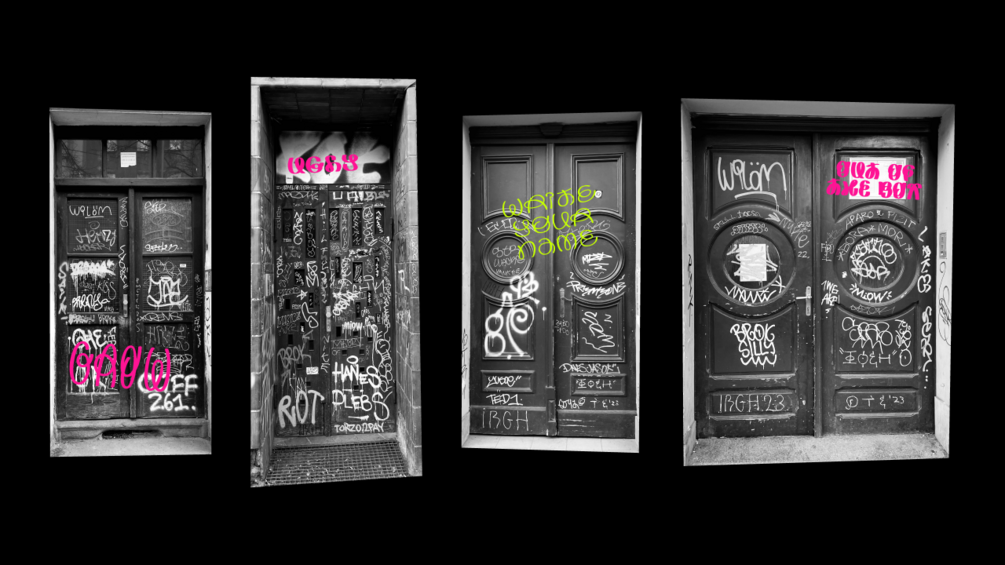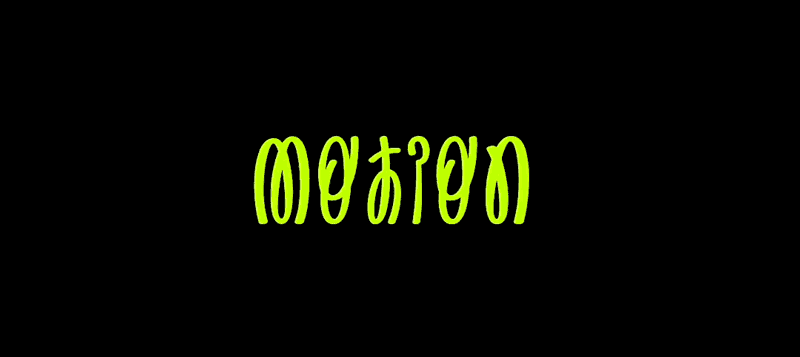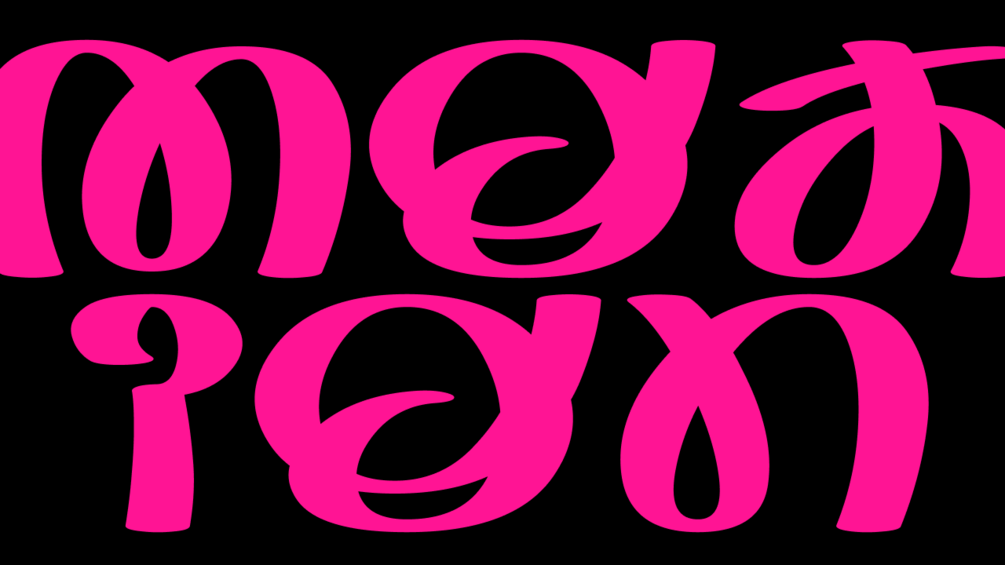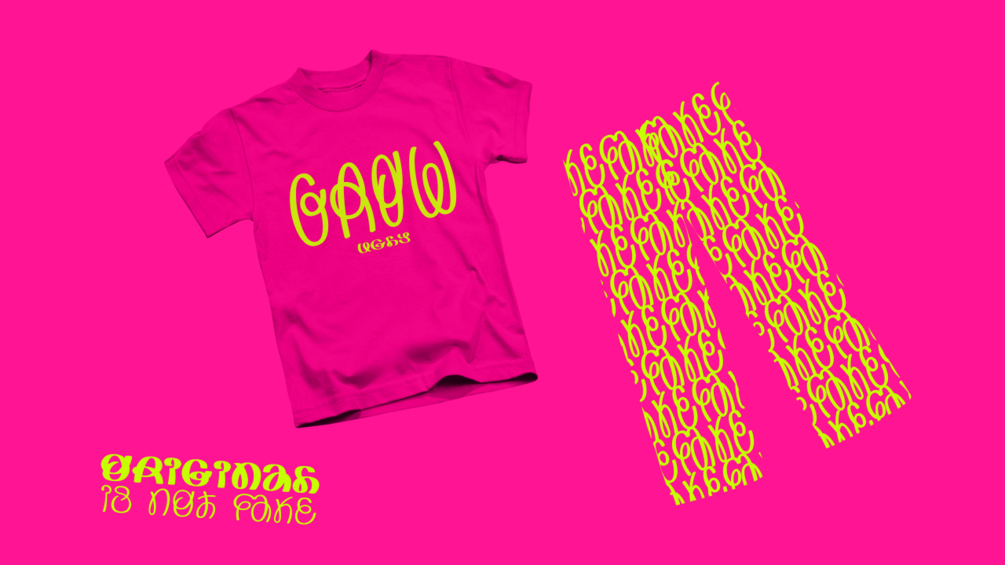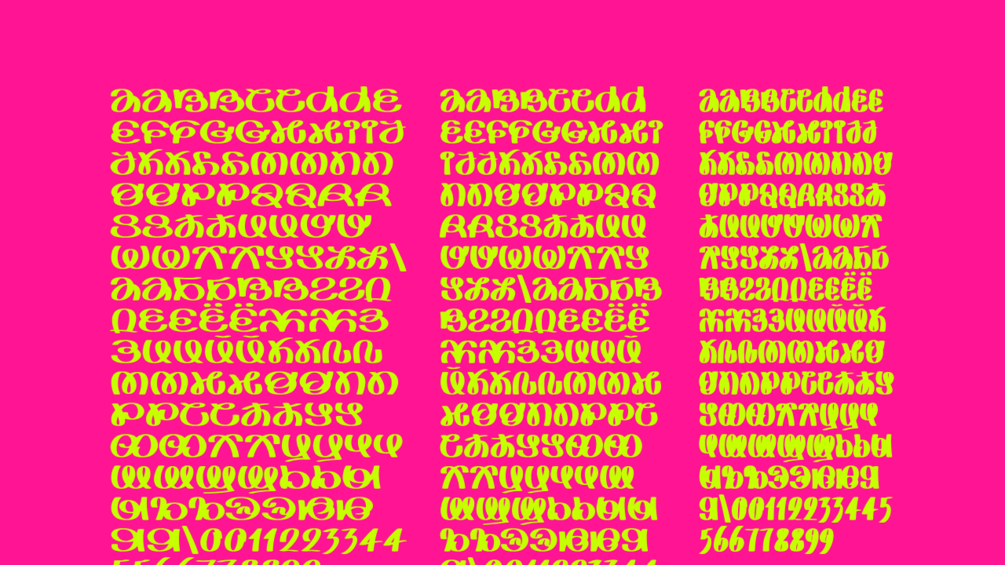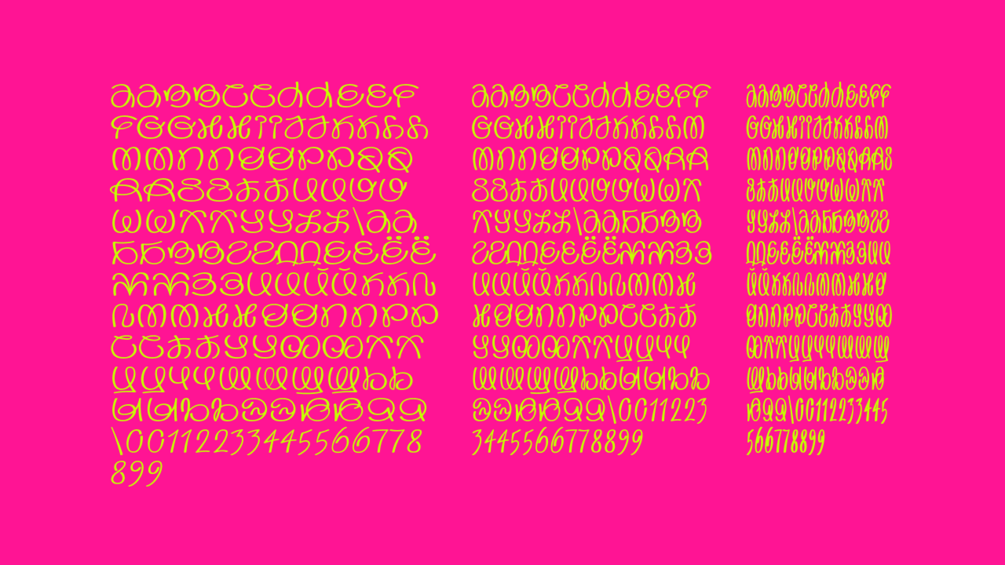
Motion - free variable font
"Motion" is a variable font with contextual alternates. Available wide and width controls, so you easily can get light condensed text, or bold expanded, or any other inbetweeners. Included basic Latin and Cyrillic letters, and symbols.